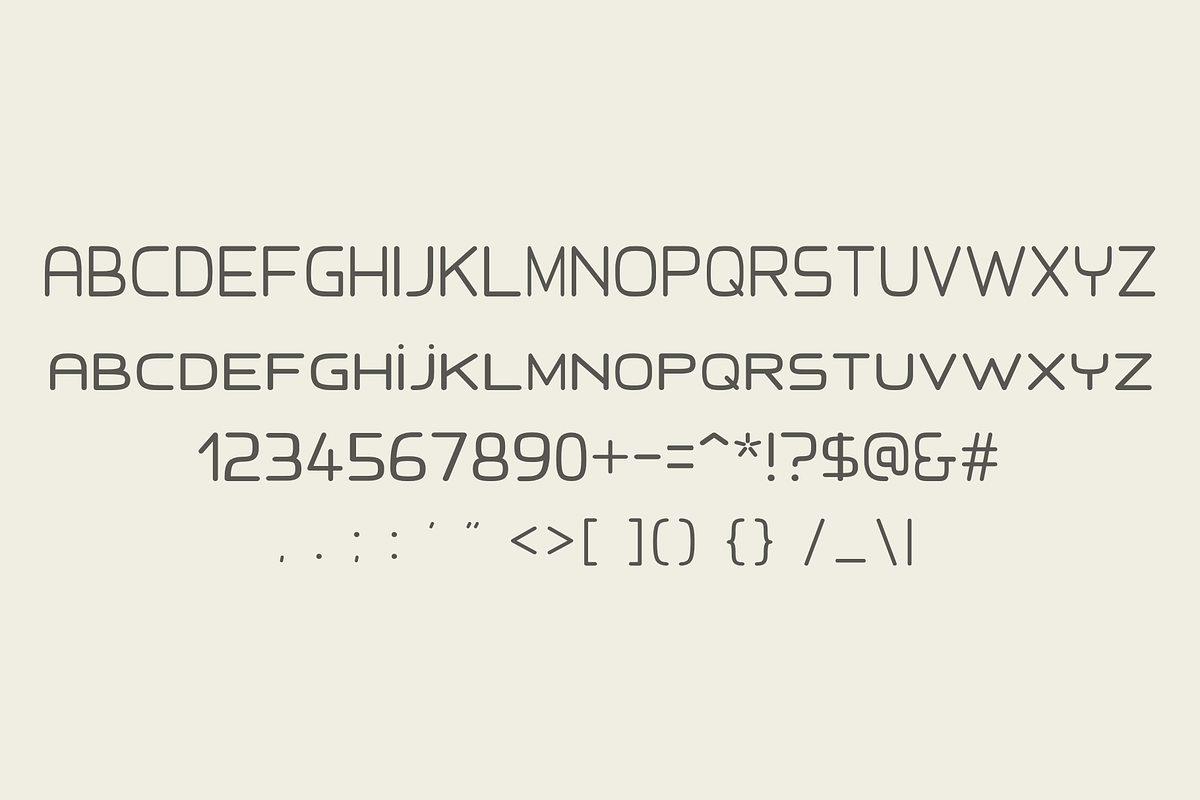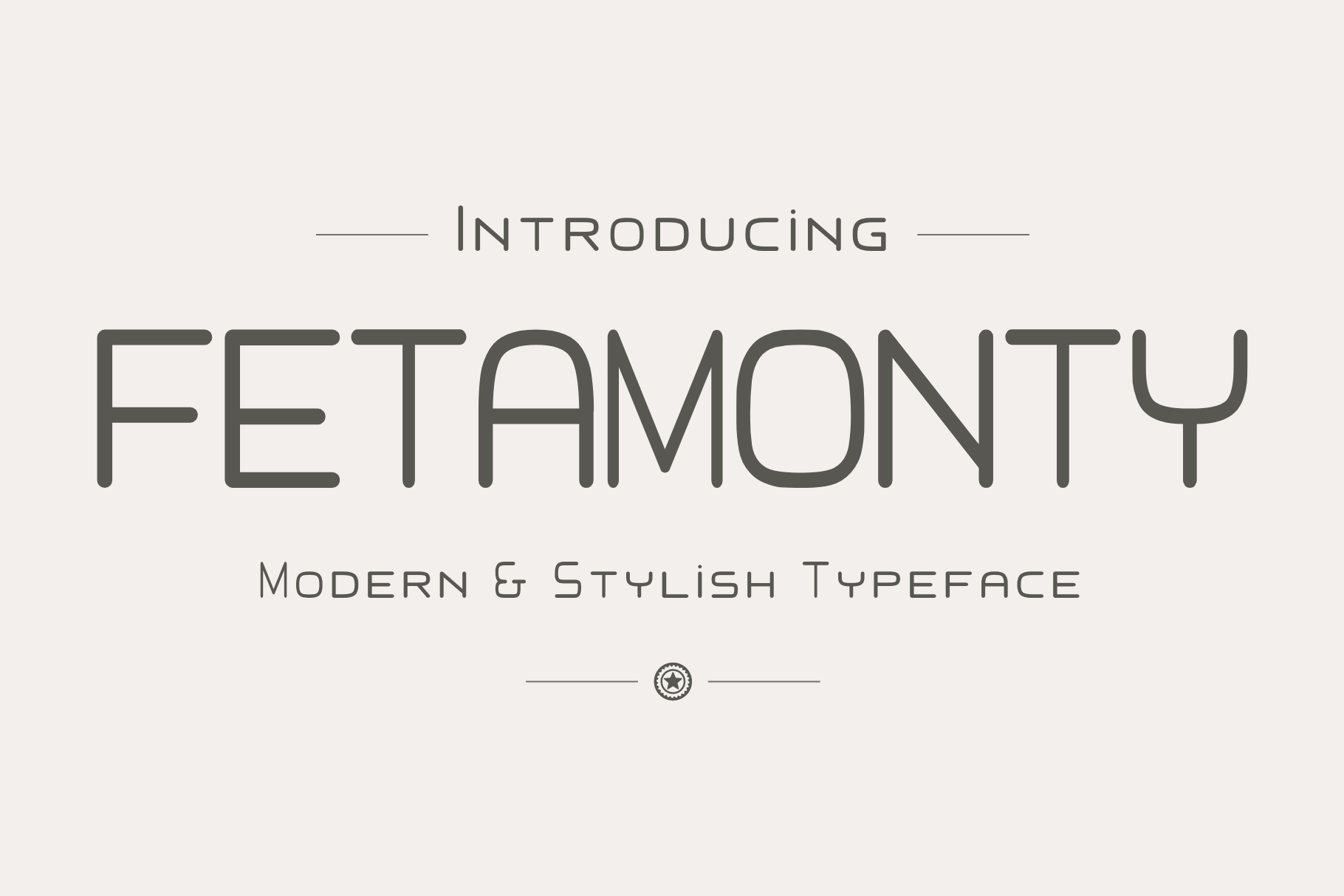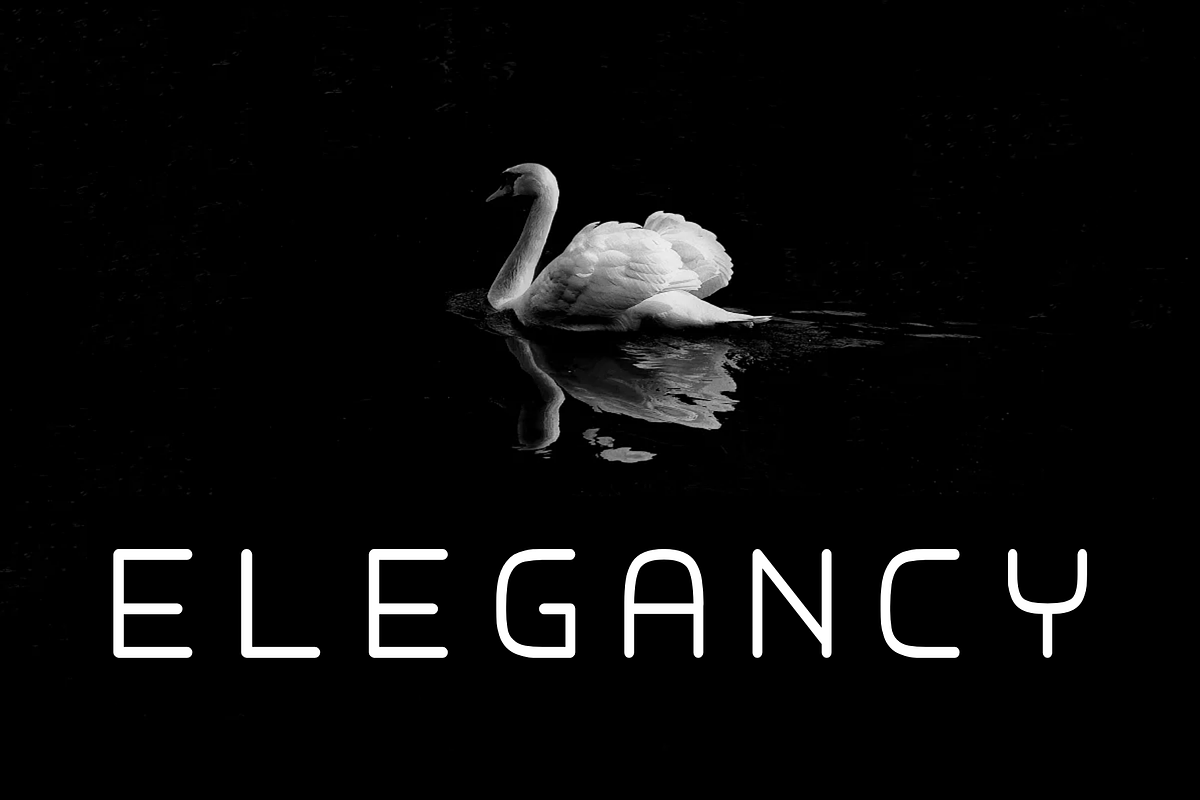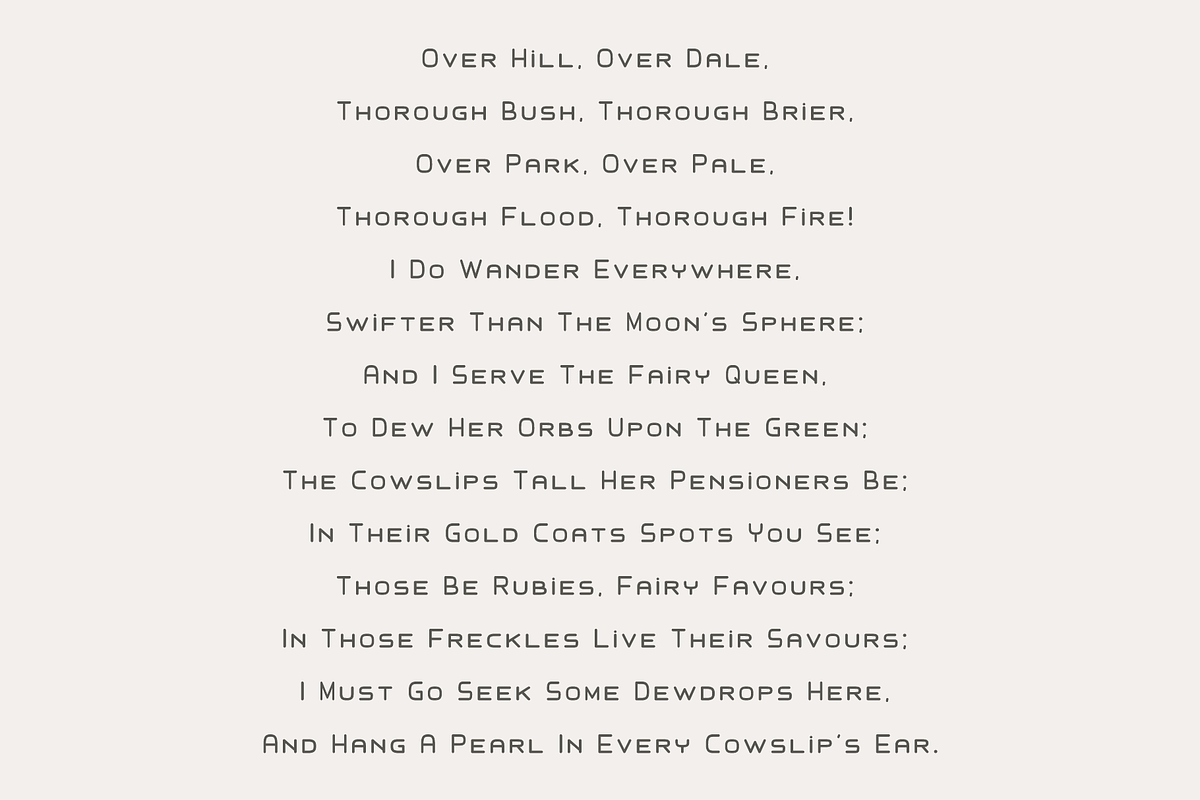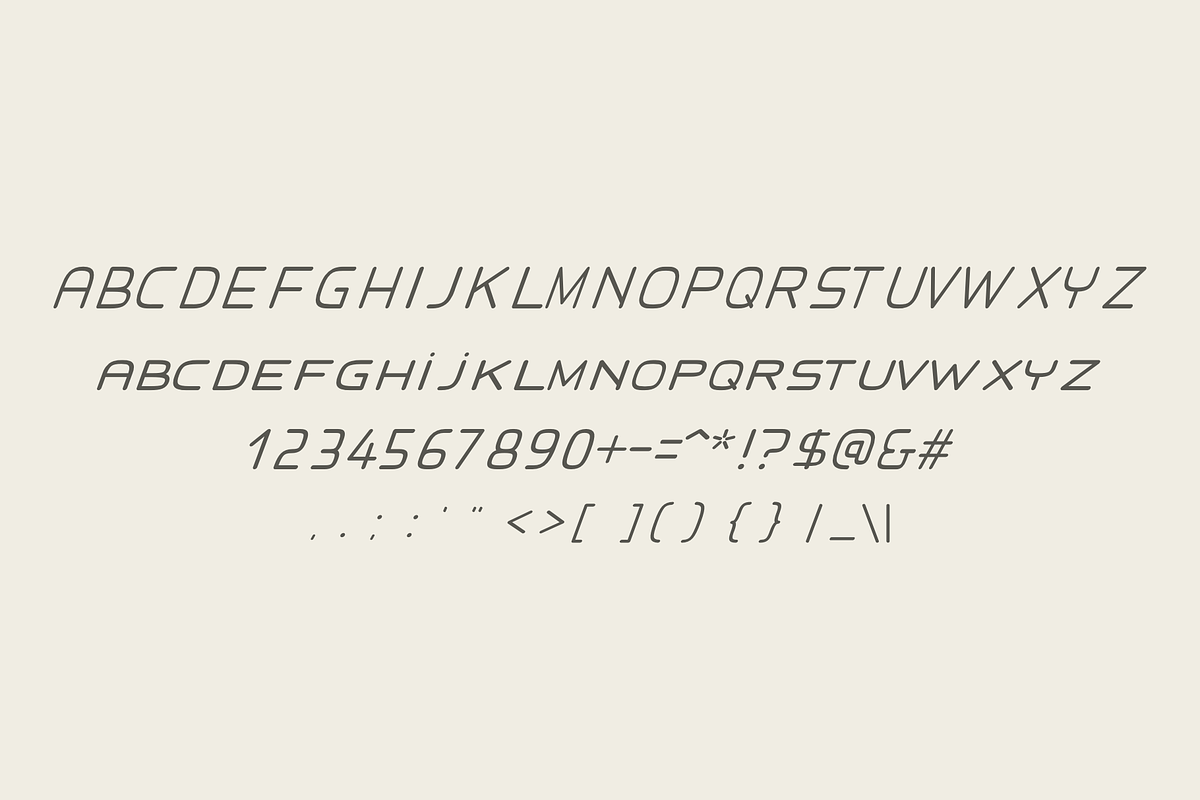
Fetamonty - Modern Typeface
Introducing Fetamonty Typeface - a clean, elegant, modern typeface that you can use in packaging or branding, creating beautiful logos, headlines, quotes, and any other printed matter. I hope that the font will become your excellent assistant in the design of products.
- Consistency
- Well organized
- Easy to use